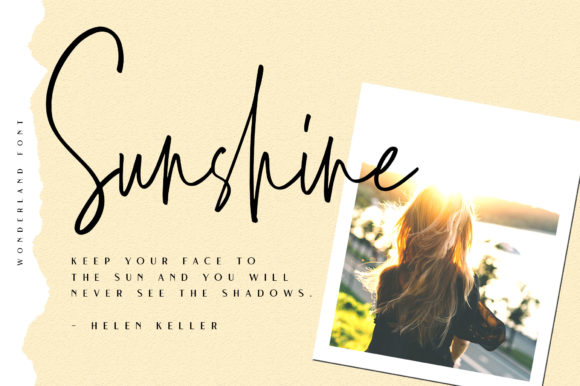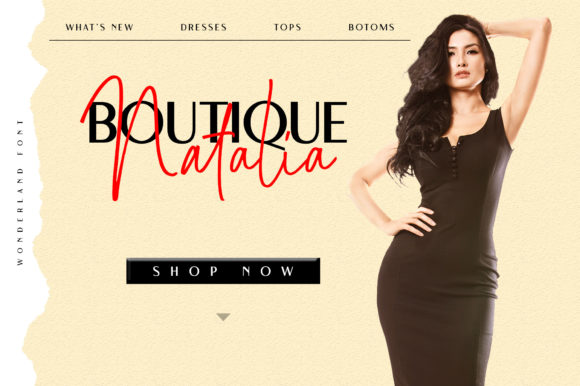
Wonderland Font
db-ku.com - Script & Handwritten -- Wonderland is an incredibly classy script featuring spacious lining and delicate width in its characters. This fancy handwritten font will make any design idea stand out!